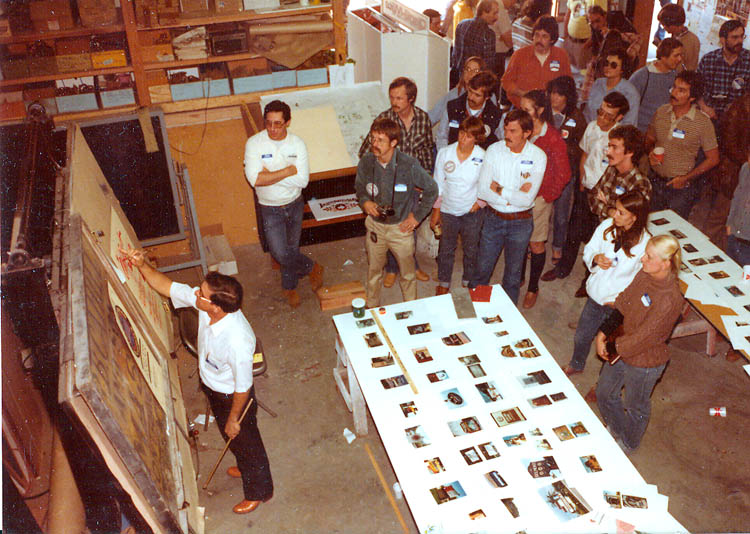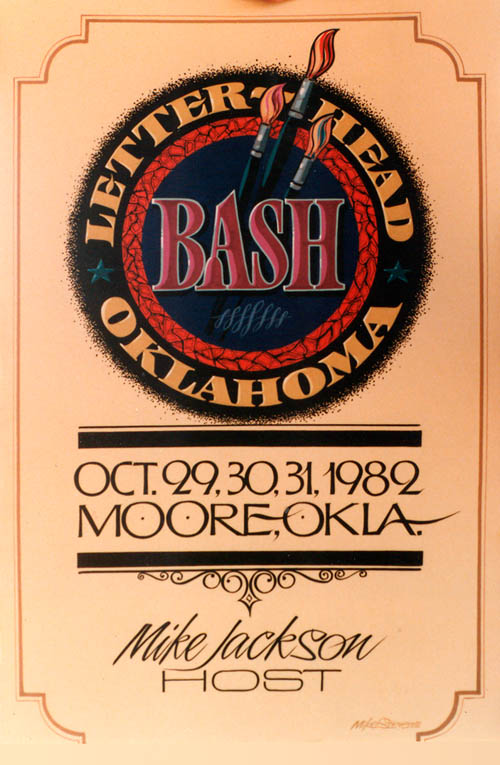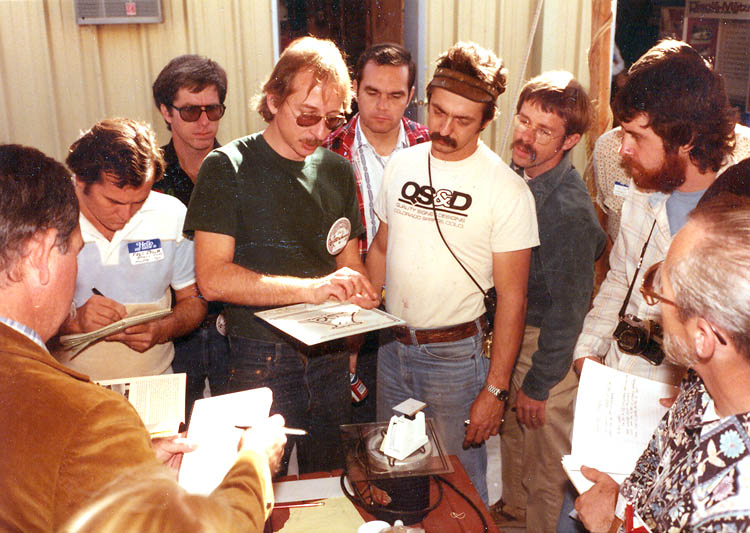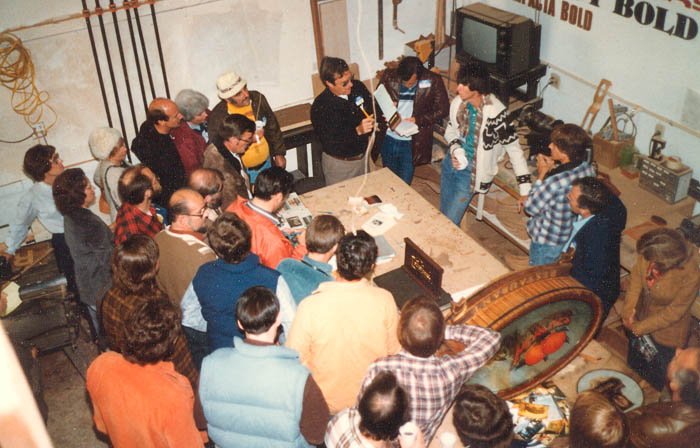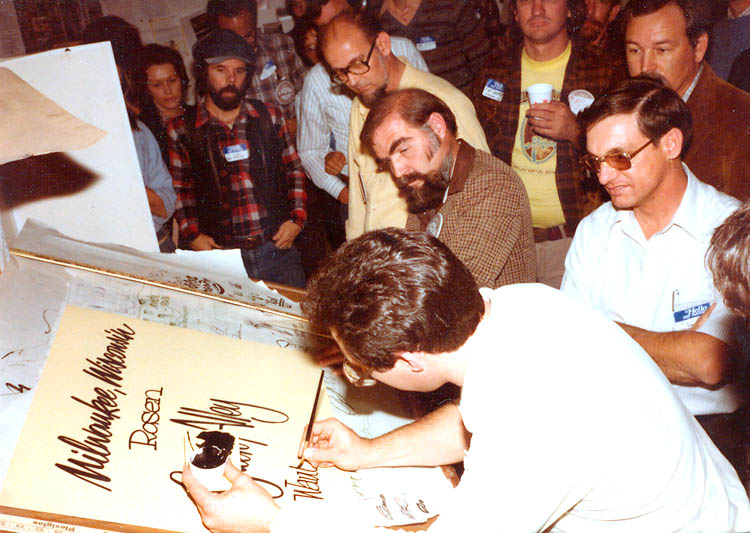
Here are a few photos from the Oklahoma Bash over the Halloween weekend of 1982. Wow! Almost 30 years. MJ
Wow! Seems like it was only yesterday. Many professional lives were given new direction that weekend. Thanks Mike for the Bash and for posting the remembrances.
Mike: WOW. These are wondeful to see.
One word sums up the look on the faces of the eager multitudes shown here, watching each demonstration:
HUNGRY!
One word sums up the look on the faces of the eager multitudes shown here, watching each demonstration:
HUNGRY!
Maybe I can scan more from my photo albums of that weekend and get more on here.
But for now, I'd like to thank you and the original group in Denver for getting the thing going in the first place. I wish I could have been there when it was in its infancy, too!
That group changed everything.
Have been having a great time pouring thru the old photos here and Noel's. I can't figure out who the young guy bashing out a great showcard is with Raymond and Mike Stevens(?) over his right shoulder. I'd heard of all this up in Canada and even considered going with an old friend, but when he backed out the idea just petered away. The old banger that passed as the car I drove back then, was always at risk of dying between home and the corner store as well.
The guy doing the show card is Bob Behounek, but the viewer is not Mike Stevens but I can't remember his name. This was the first time that I had ever seen Bob letter and was amazed at how he held the brush and that only the tip of hair had paint - he didn't pallet out the brush like I was used to seeing.
By the way, he's still amazing.